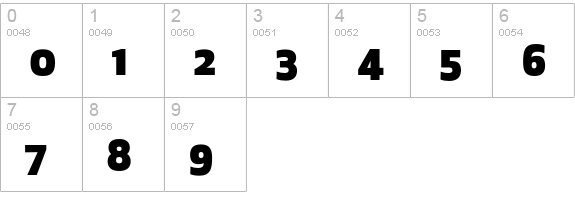
ApexNew-Ultra is an extreme-weight, display variant in the ApexNew typeface family \xE2\x80\x94 well suited to extreme display use where maximum visual weight is required.
Introducing ApexNew-Ultra font, a modern and sleek typeface that exudes sophistication and elegance. With its bold and striking appearance, this font is perfect for creating eye-catching designs that demand attention. The clean lines and sharp edges of ApexNew-Ultra make it a versatile choice for a wide range of projects, from logos and branding to posters and advertisements. What sets ApexNew-Ultra apart is not only its stunning design, but also the fact that it is completely free to download. That's right, you can get your hands on this premium font without spending a dime. Simply head over to FontsMarket.com to access this incredible typeface and take your designs to the next level. Don't miss out on the opportunity to elevate your projects with the sleek and stylish ApexNew-Ultra font. Download it now and let your creativity flourish!